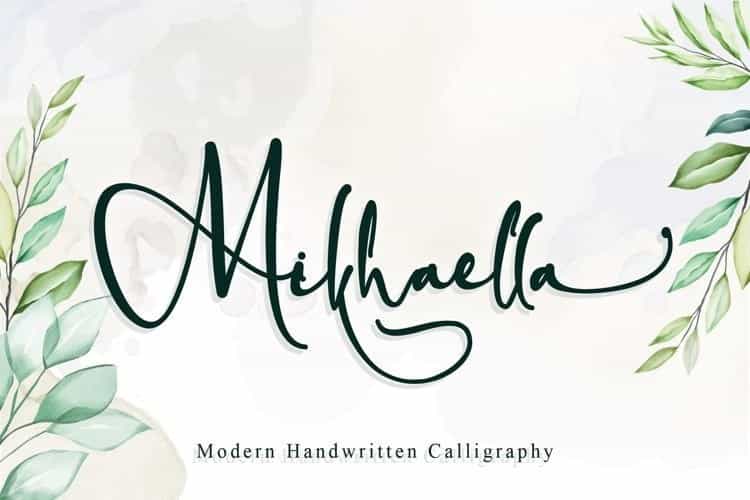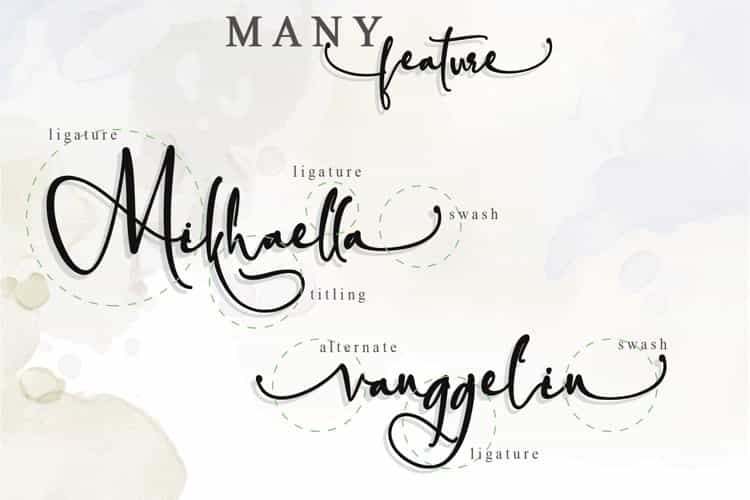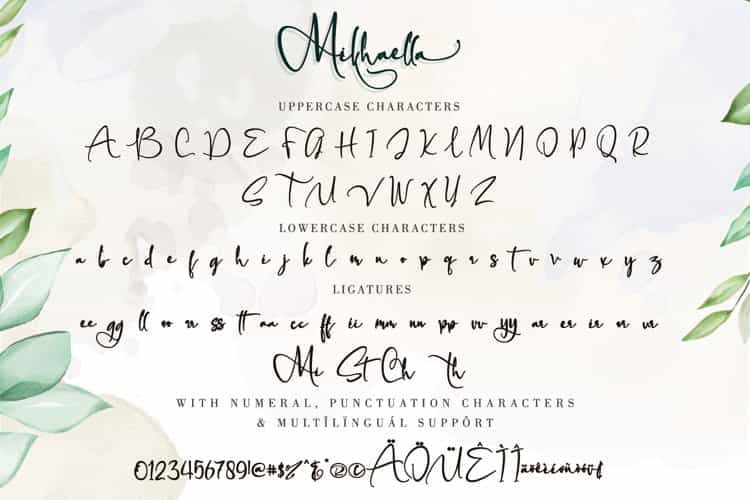
Discover Mikhaella Modern Calligraphy Font, part of the Calligraphy Handwritten collection—a versatile and unique font perfect for adding a personal touch to your projects. Download it for free and enjoy crafting designs with style, from invitations to social media posts. This font is available exclusively for personal use, giving you the freedom to create without limits. Unlock your creativity with Mikhaella Modern Calligraphy Font today!
Mikhaella, with a moving baseline, beautiful modern calligraphy font. This hand-lettered script will look almost as good on all design projects such as wedding invitations, logo’s or business cards as it does on your skin.